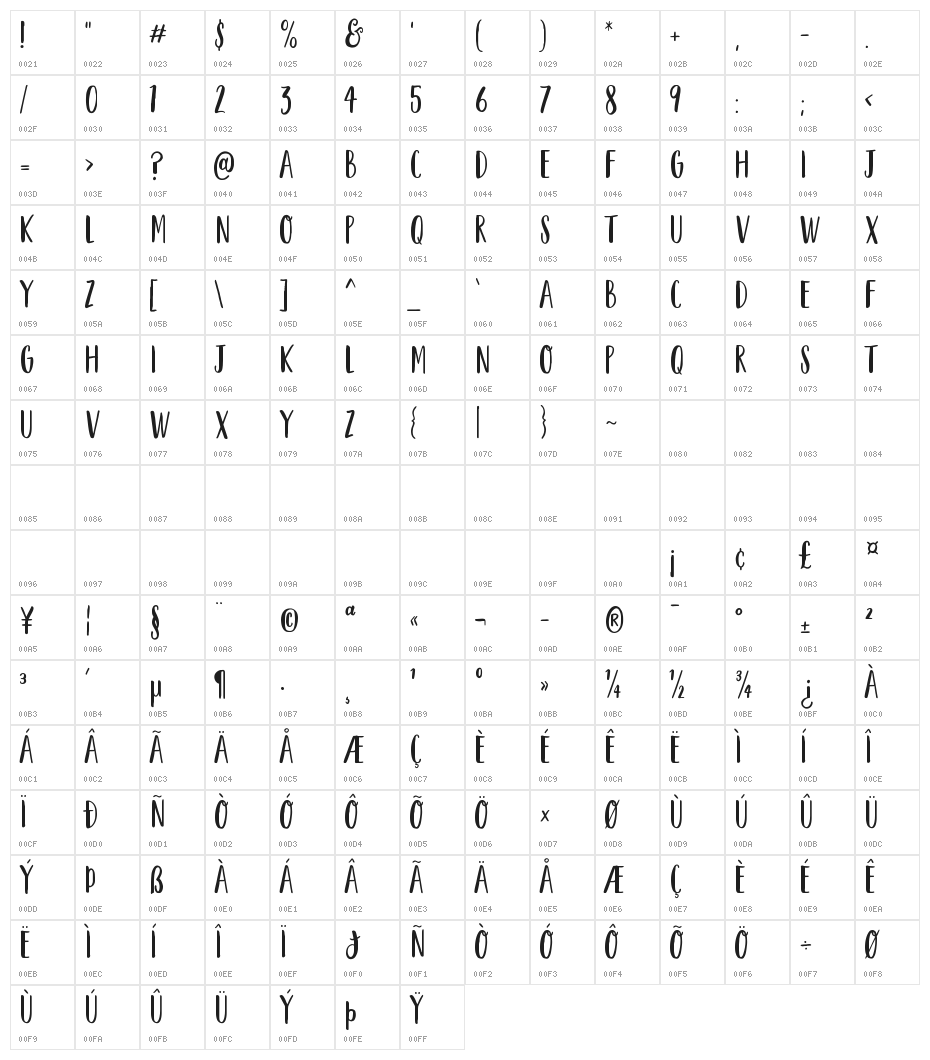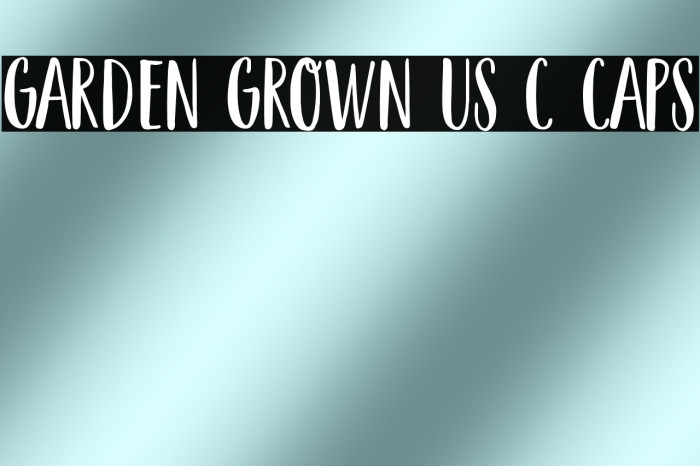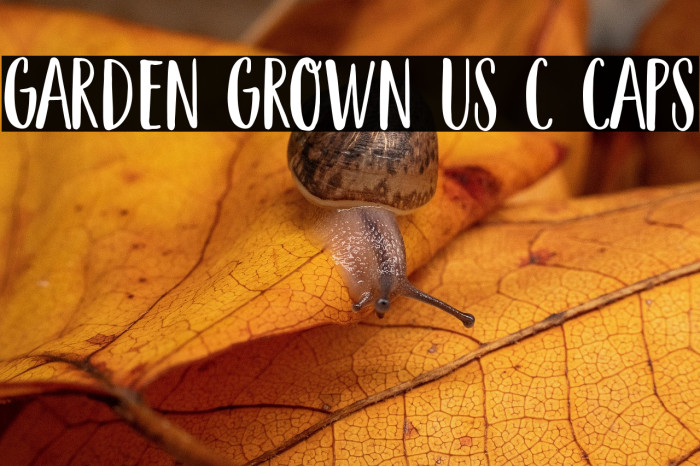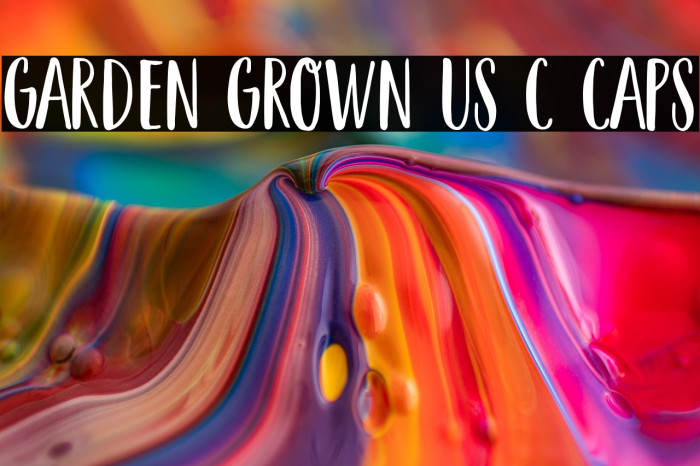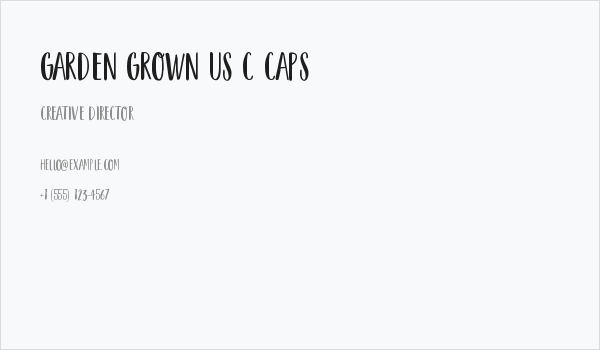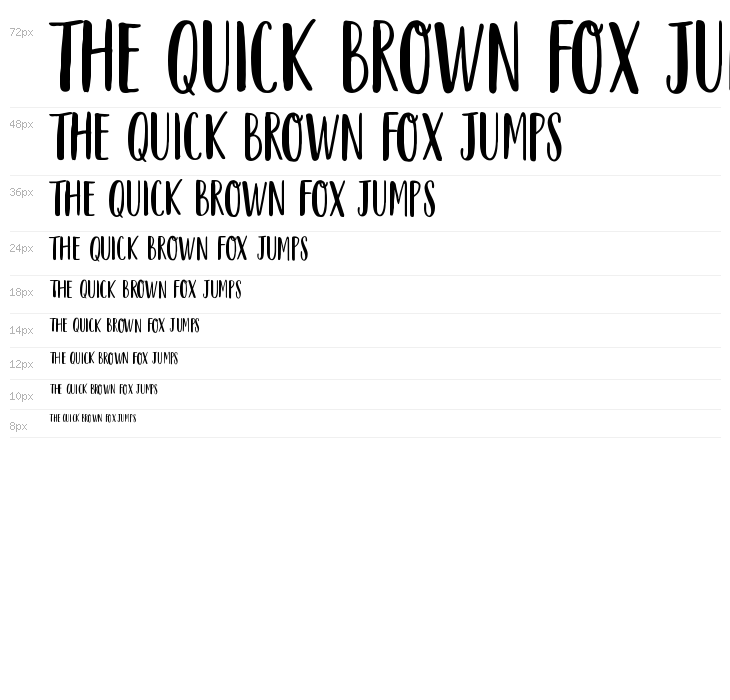
Garden Grown US C Caps Font
Garden Grown US C Caps Description
This font features a playful and organic style, characterized by its hand-drawn appearance and slightly irregular shapes. The letters have a whimsical, flowing quality with varying stroke widths that give it a lively and dynamic feel. The uppercase and lowercase letters maintain a consistent style, with rounded edges and a slightly condensed form. The numerals and special characters follow the same aesthetic, ensuring a cohesive look across all glyphs. This font exudes a friendly and approachable vibe, making it suitable for projects that aim to convey warmth and creativity.
Use CaseLogos, Headlines, Creative projects
Proposed ProjectsIdeal for children's books, greeting cards, organic product packaging, and creative branding.